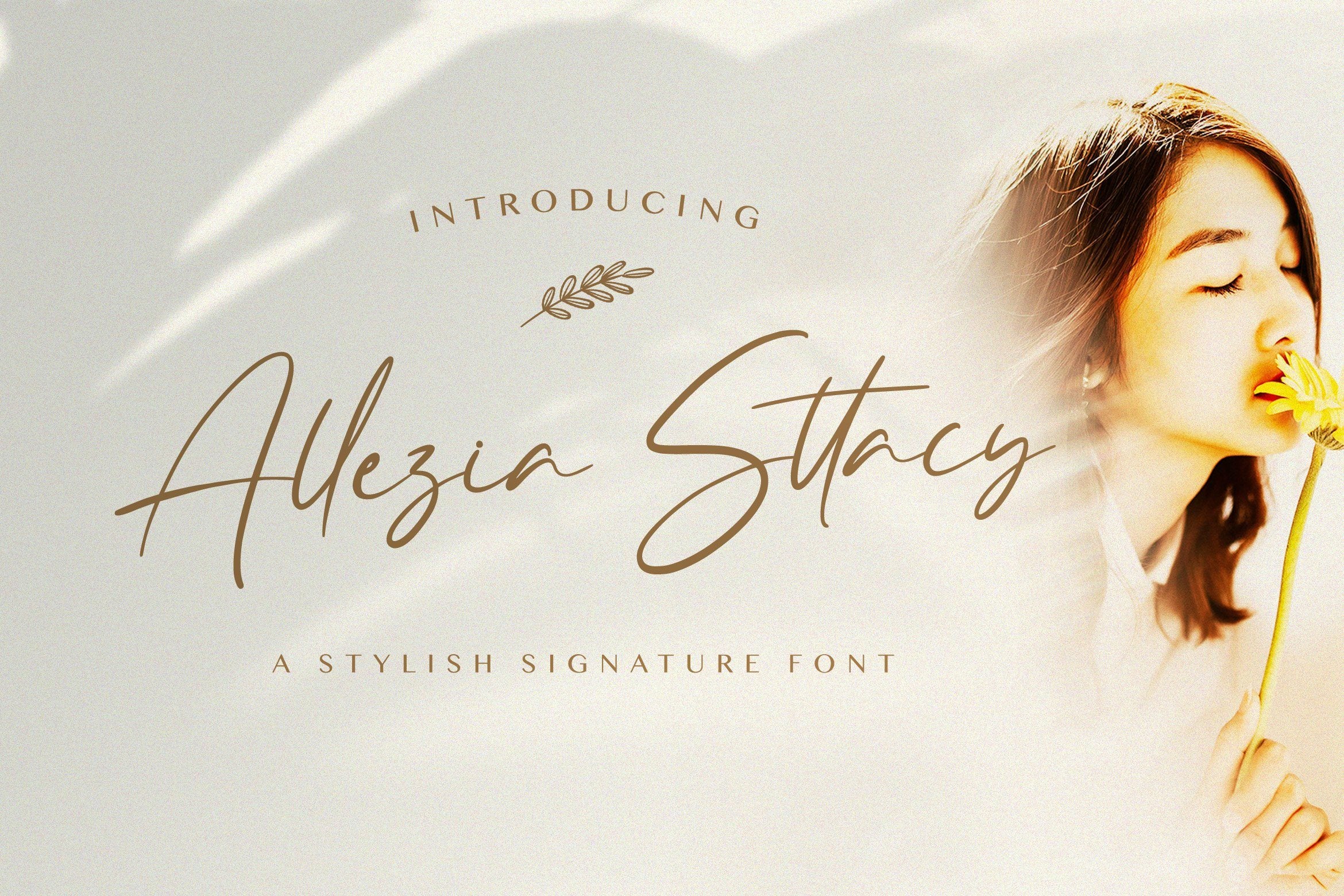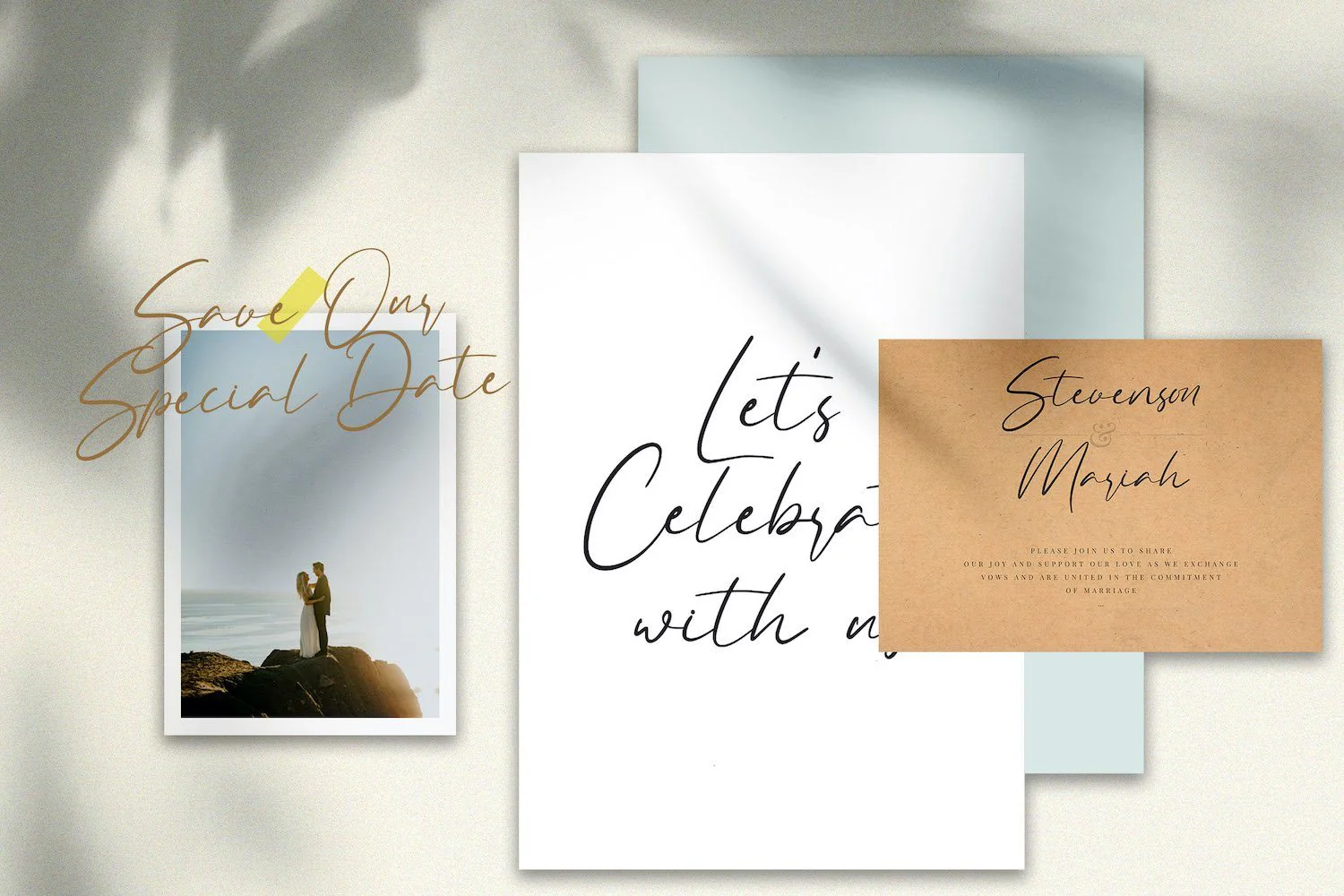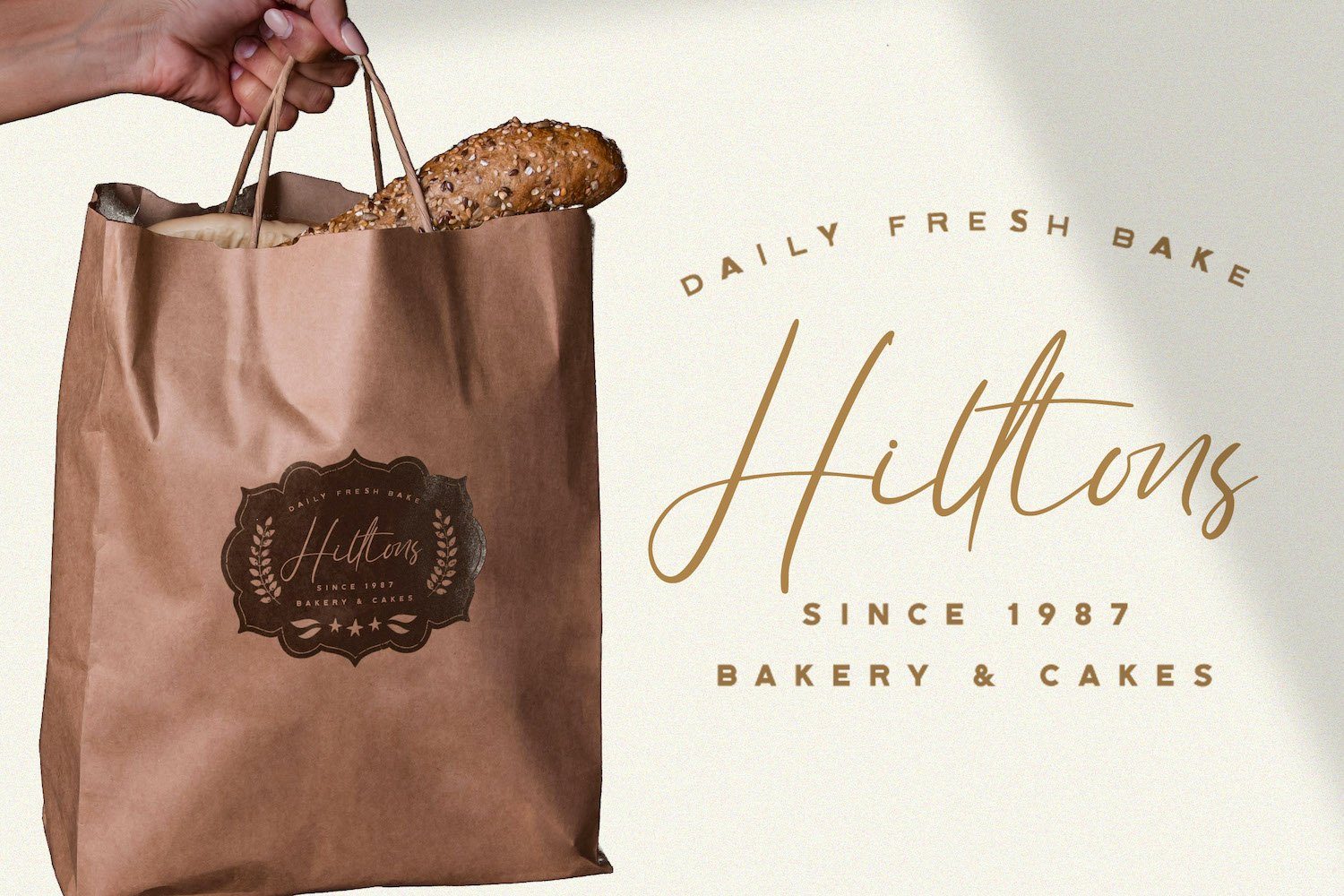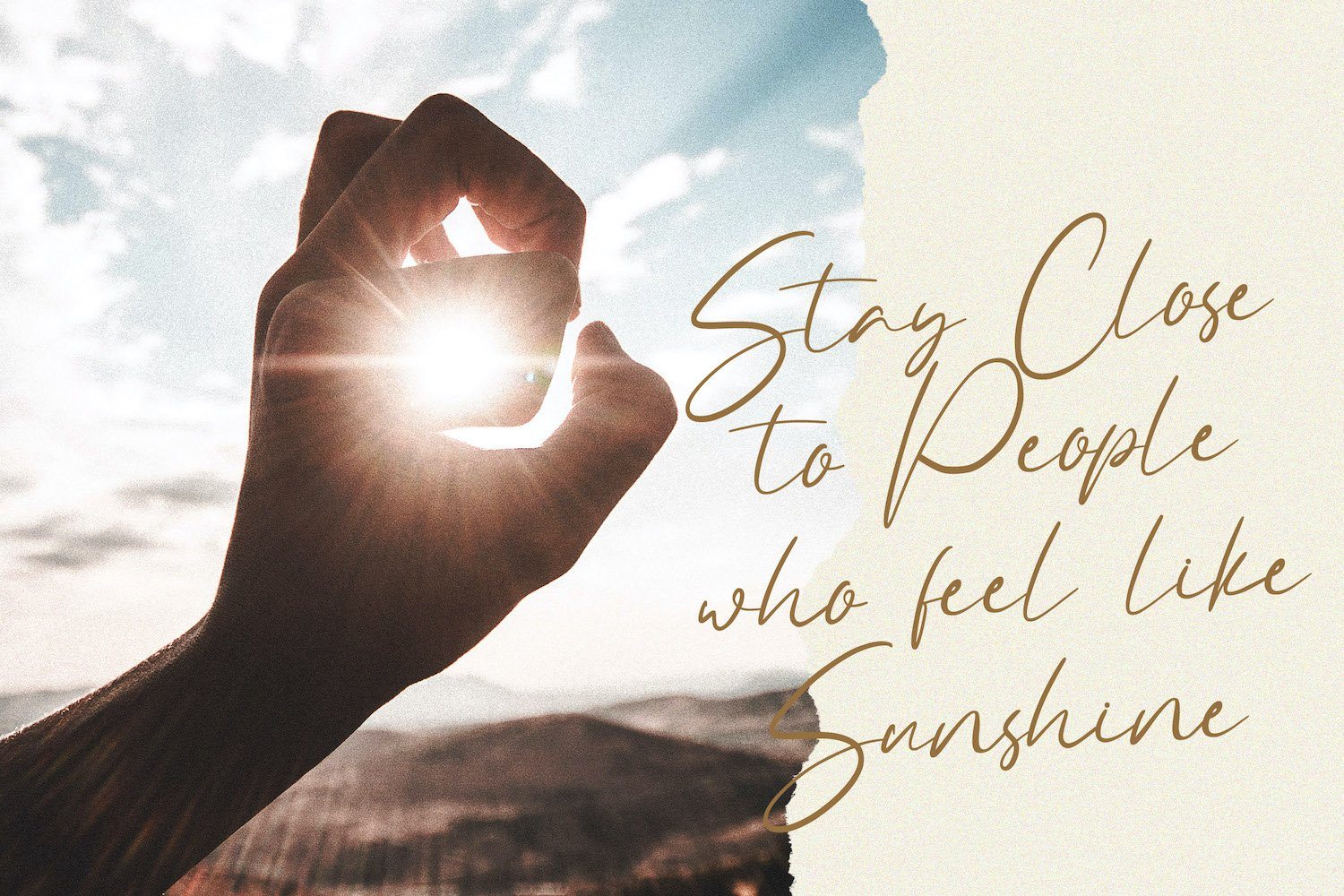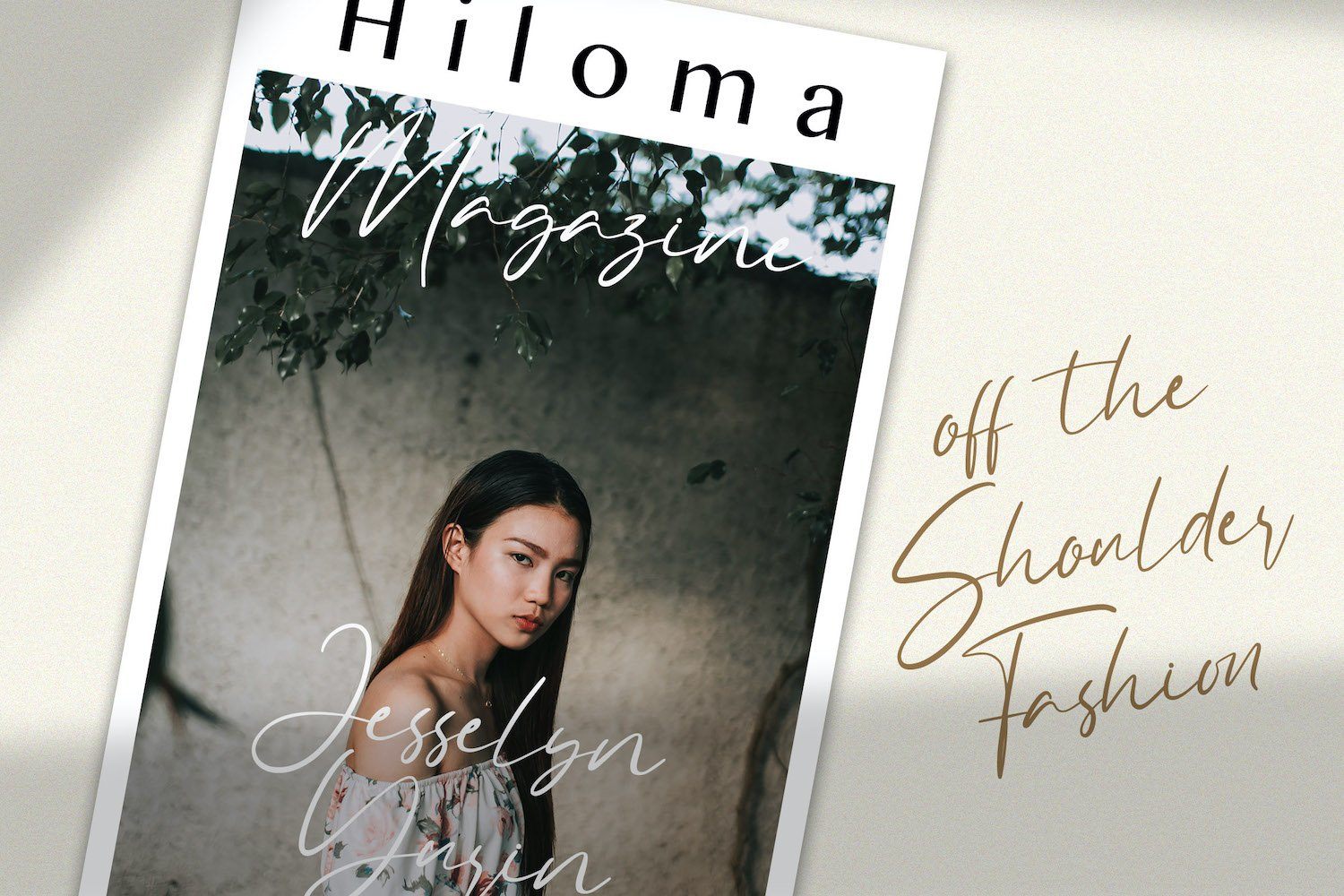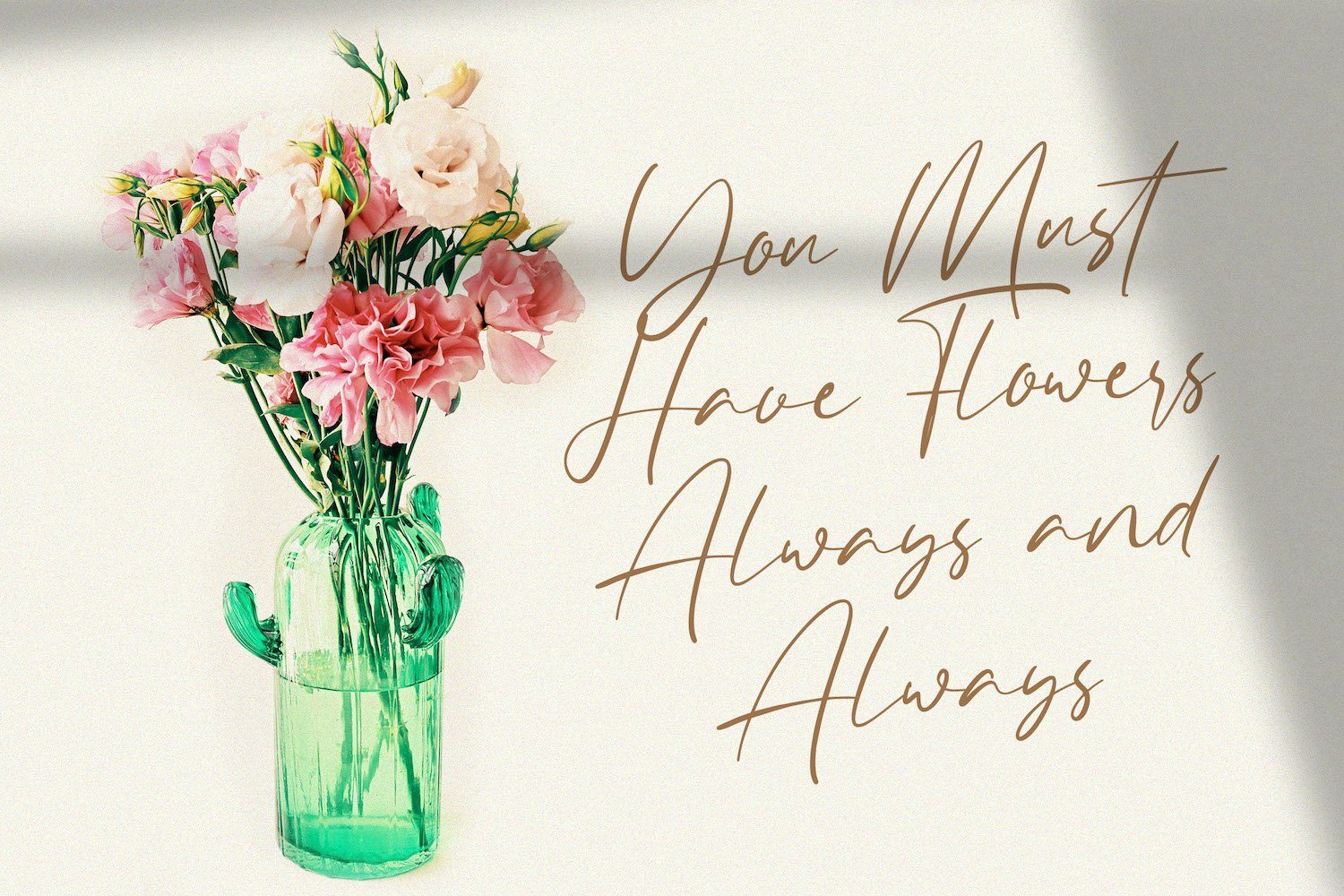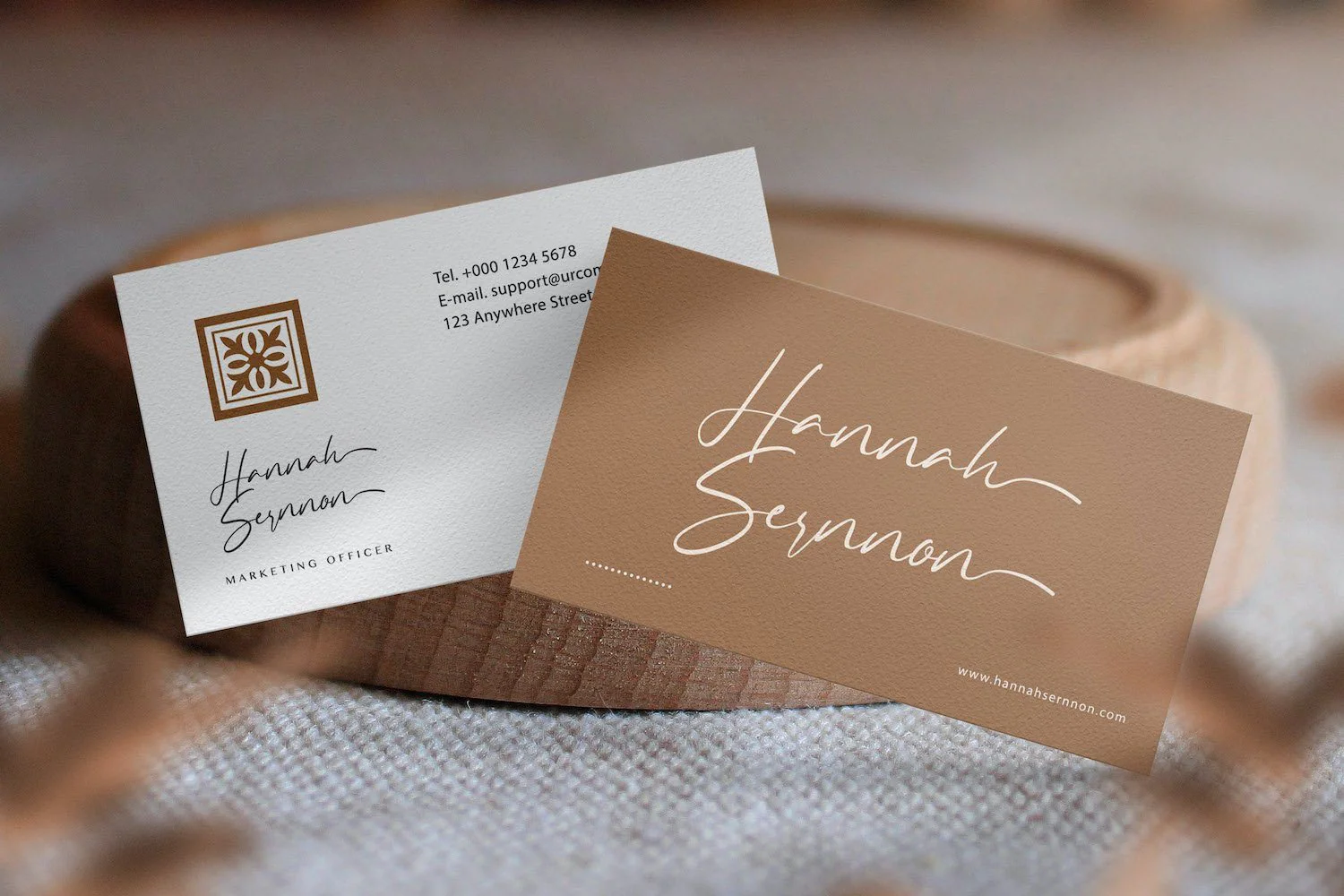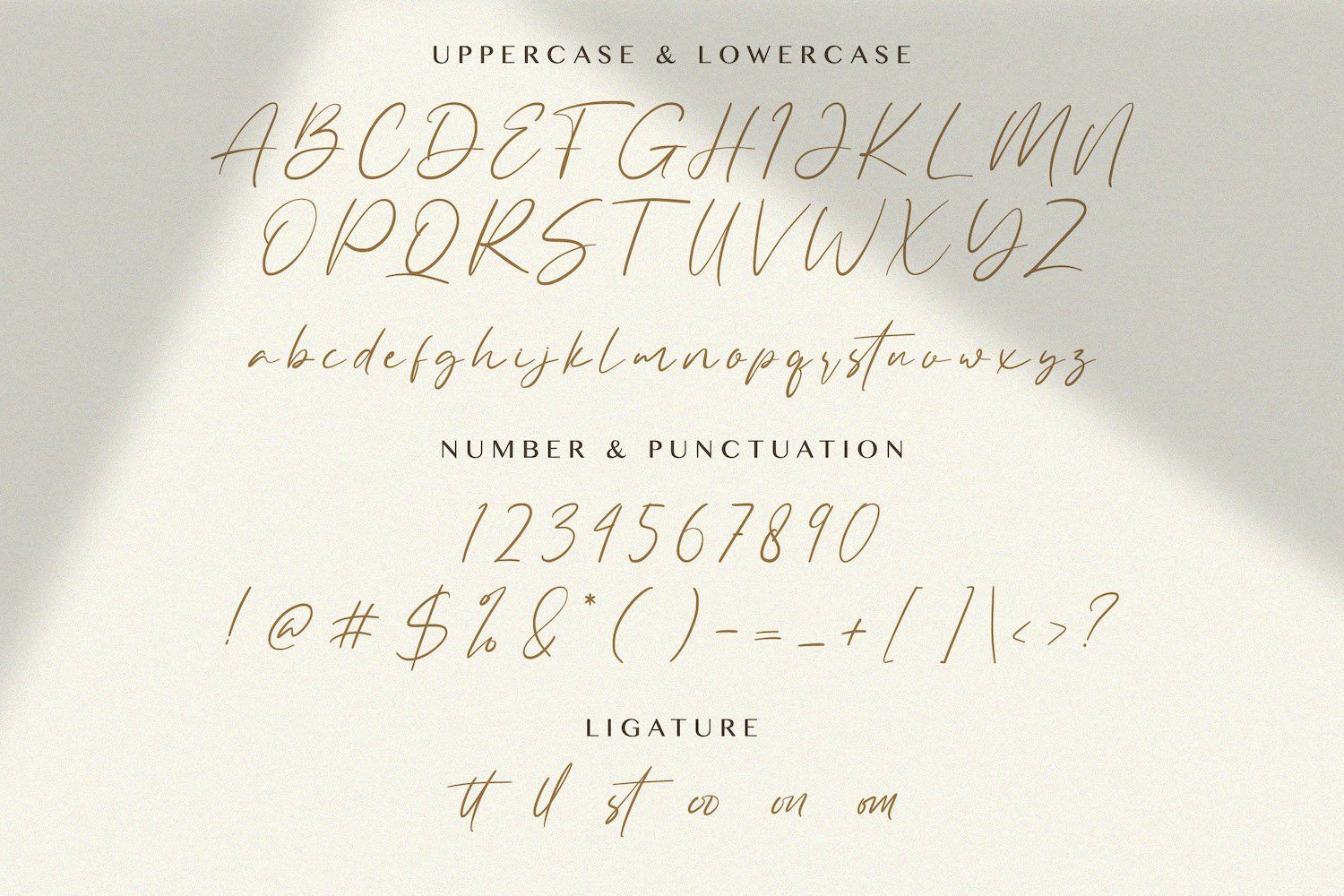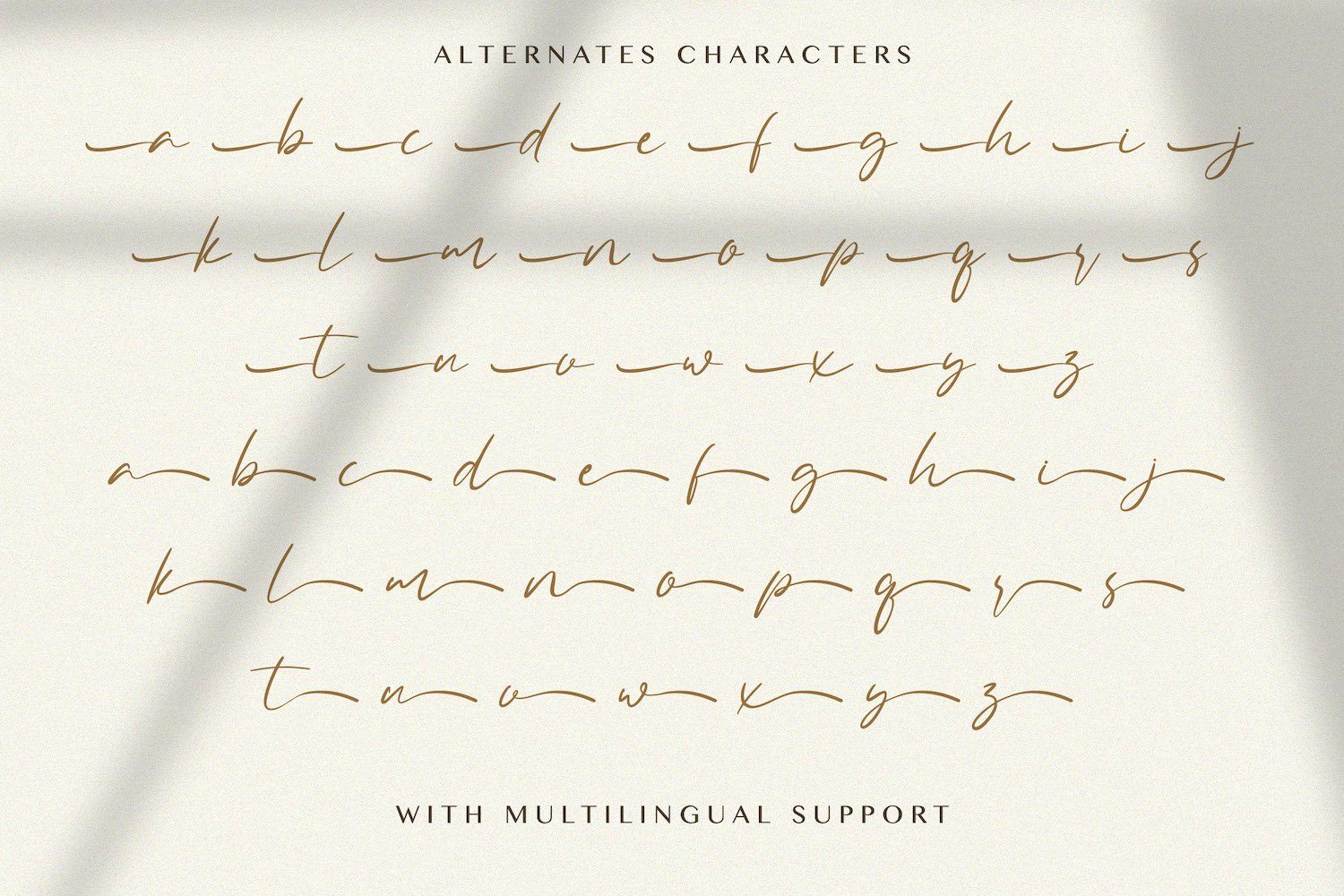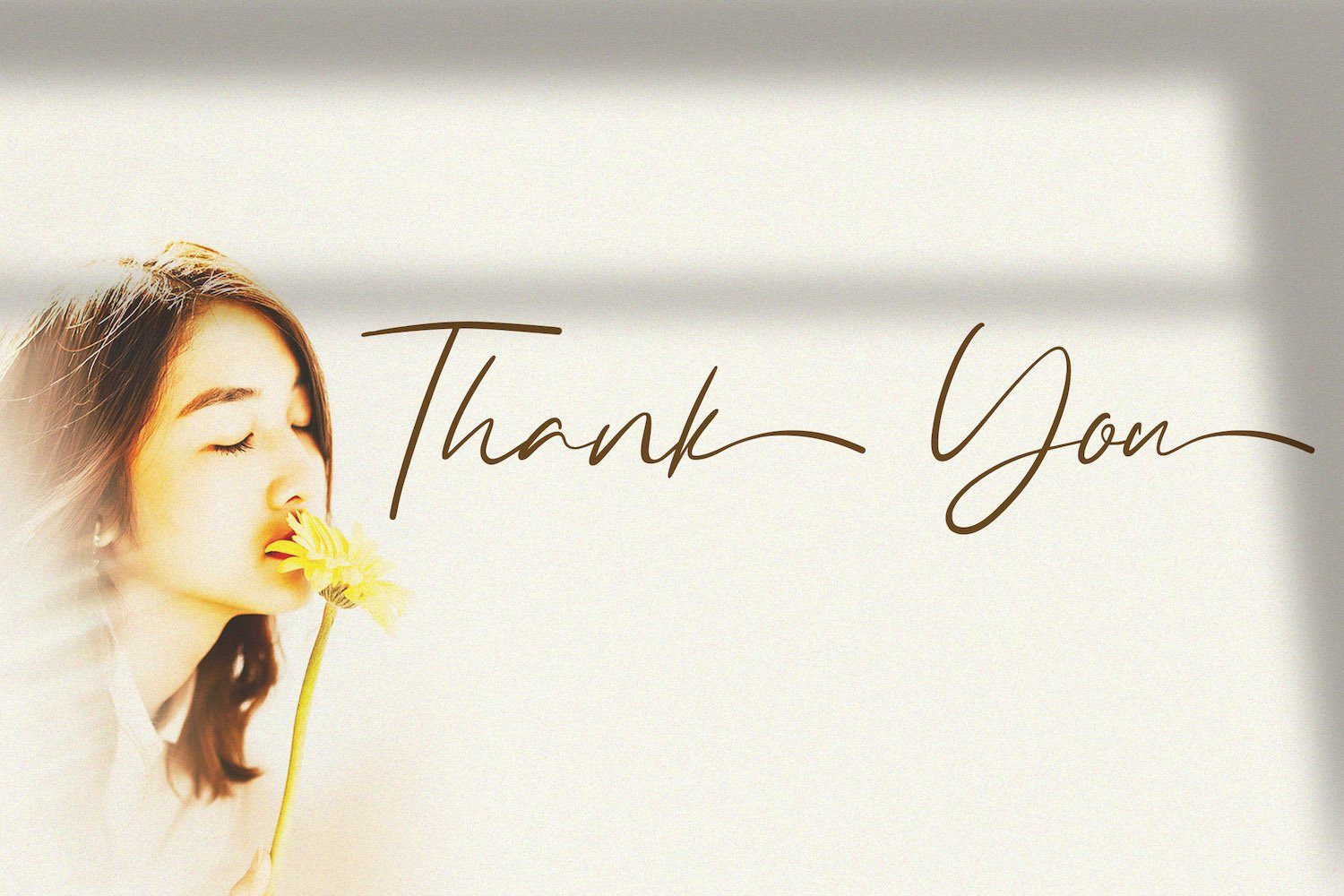
Allezia Sttacy - Handwritten Font
Introducing Allezia Sttacy - Handwritten Font
Allezia Sttacy is a delicate, elegant and flowing handwritten font. It has beautiful and well balanced characters and as a result, it matches a wide pool of designs. Add it to your most creative ideas and notice how it makes them come alive!
Introducing Allezia Sttacy - Handwritten Font
Allezia Sttacy is a delicate, elegant and flowing handwritten font. It has beautiful and well balanced characters and as a result, it matches a wide pool of designs. Add it to your most creative ideas and notice how it makes them come alive!